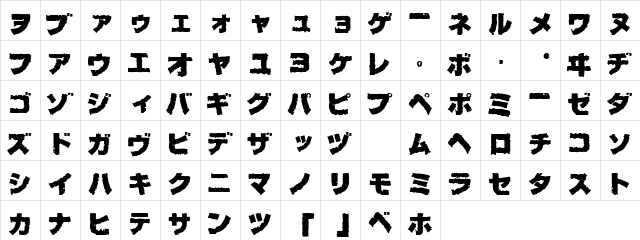
bog Black Font Preview
bog Black
Design Context for bog Typeface
bog is a composed and adaptable typeface that performs quietly and consistently across a wide range of design contexts.